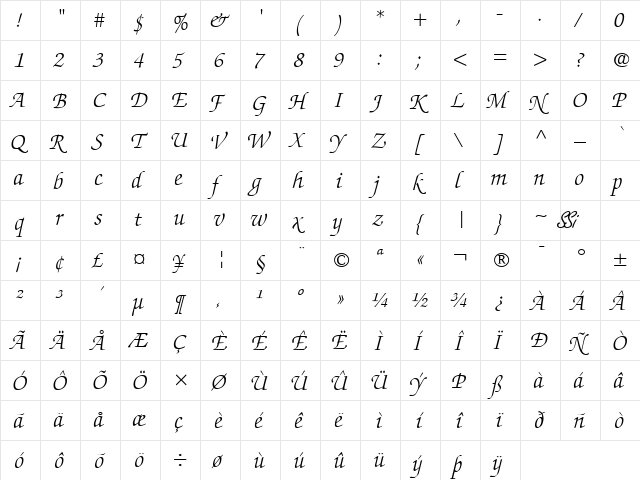
Chancery Script Light SSi Light Italic
Design Context for Chancery Script Light SSi Typeface
Chancery Script Light SSi brings a calligraphic fluidity to the page — its connecting strokes and expressive curves give it an unmistakably human quality. Its slender proportions lend an understated elegance to any composition.
Font Pairing: Combine Chancery Script Light SSi with a simple geometric sans for maximum contrast — the tension between flowing curves and clean structure is a classic typographic pairing.
Pro Tip: Use Chancery Script Light SSi for short runs of text — names, titles, or taglines. Extended body copy in script faces tires the eye quickly.